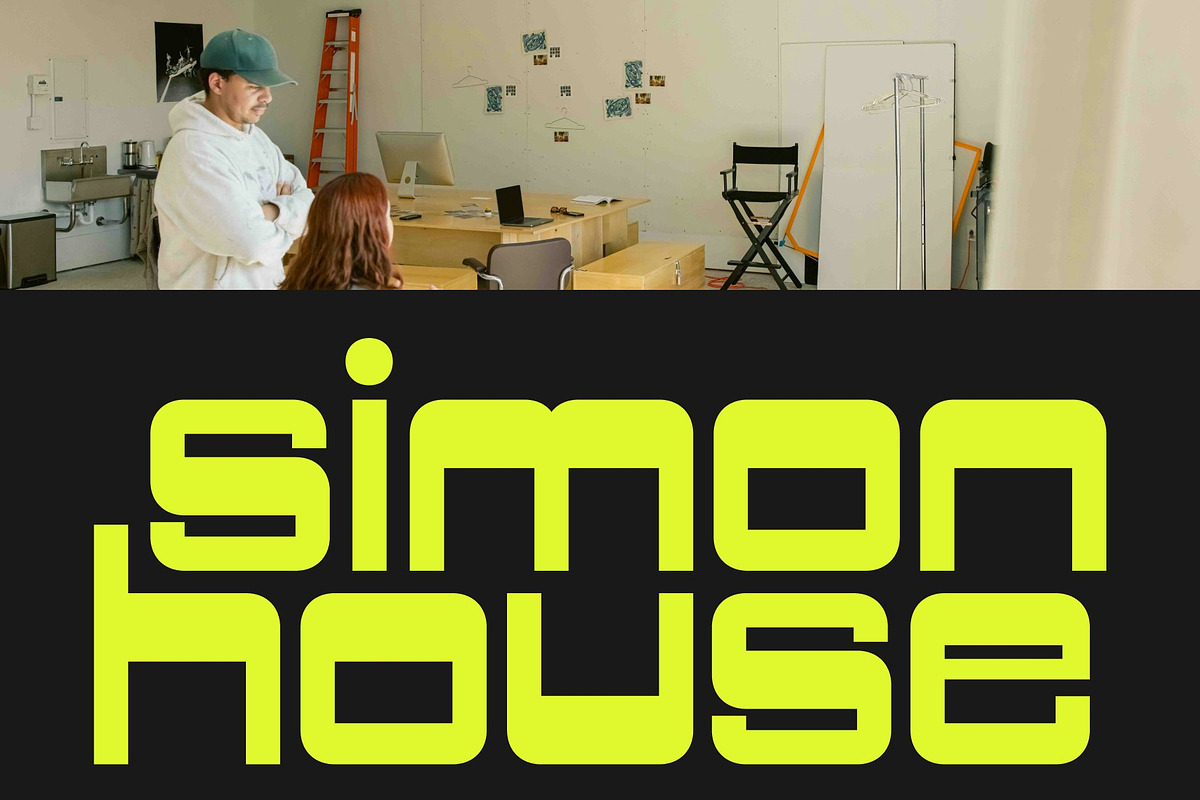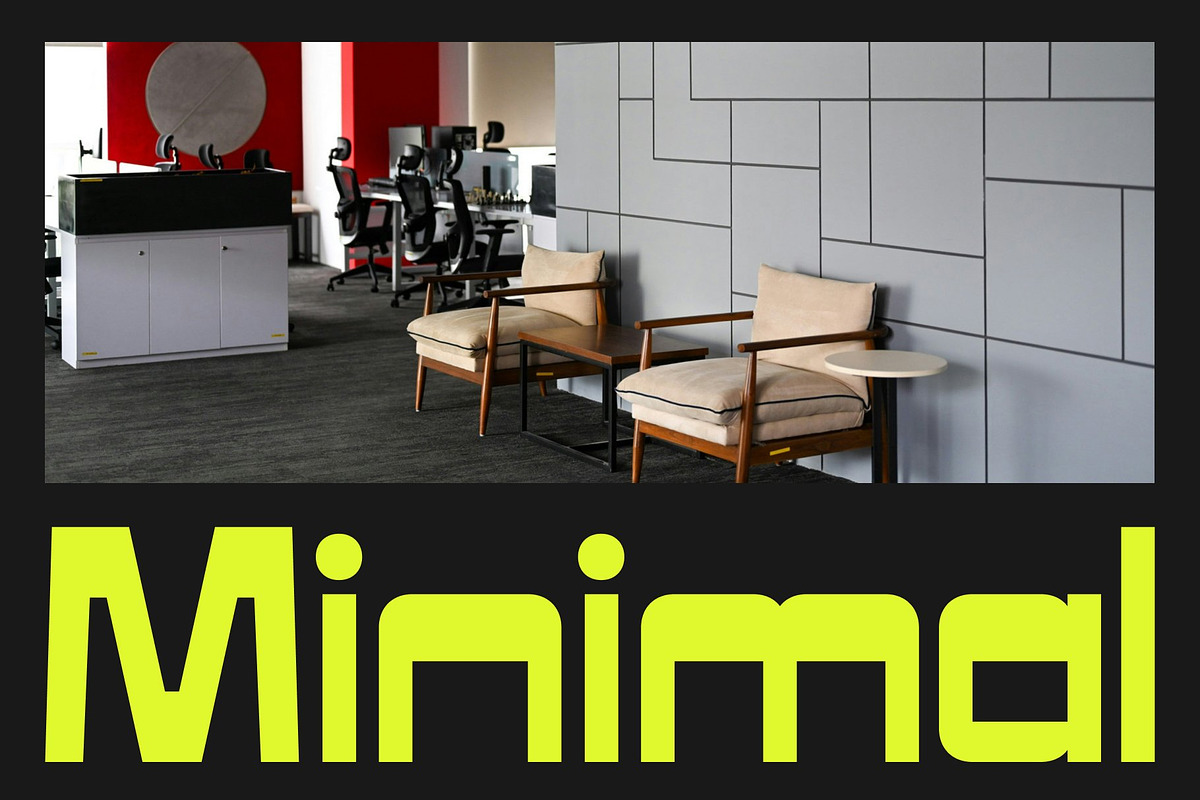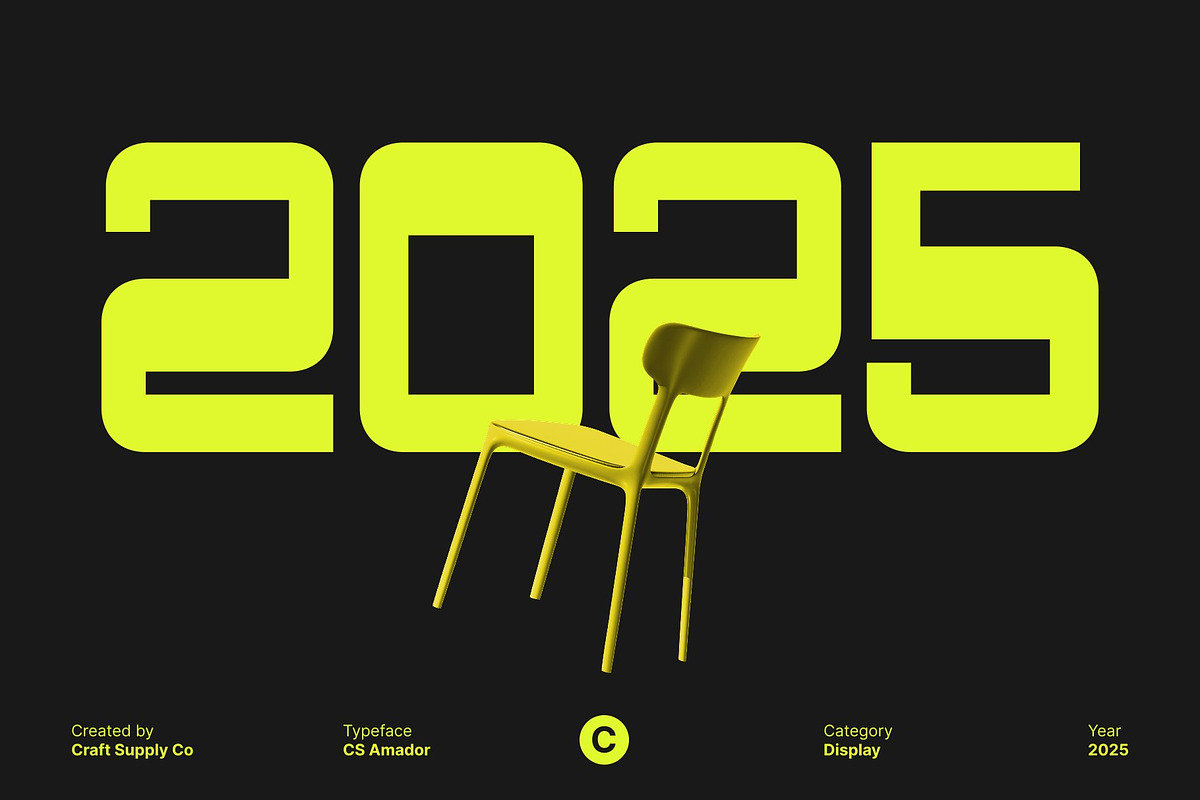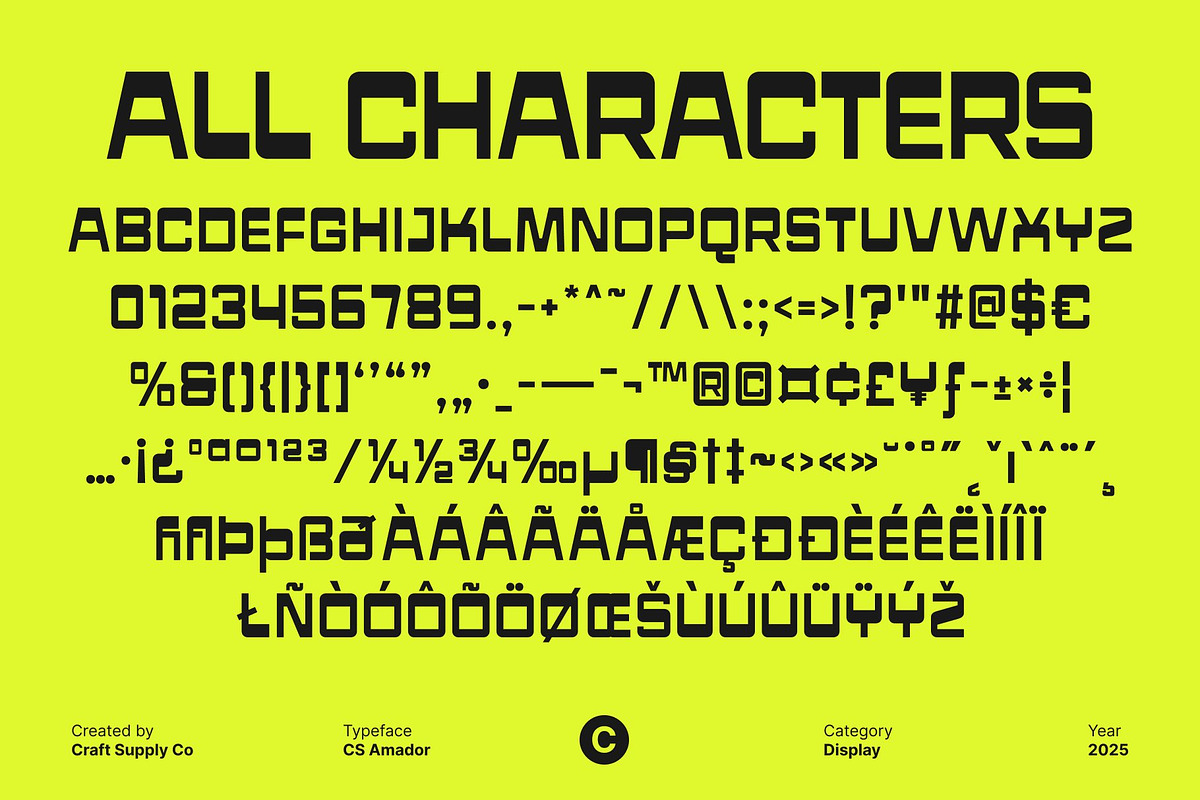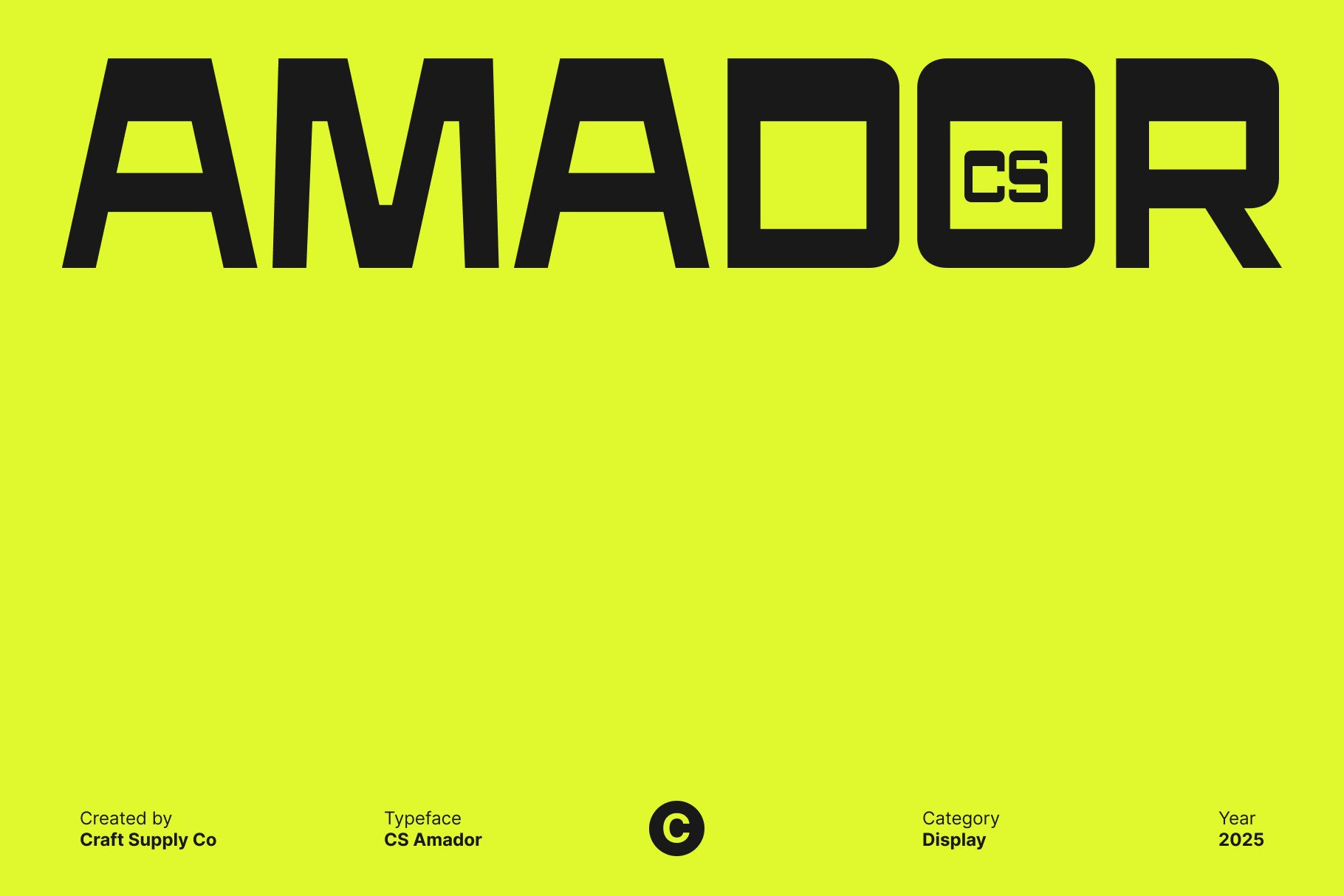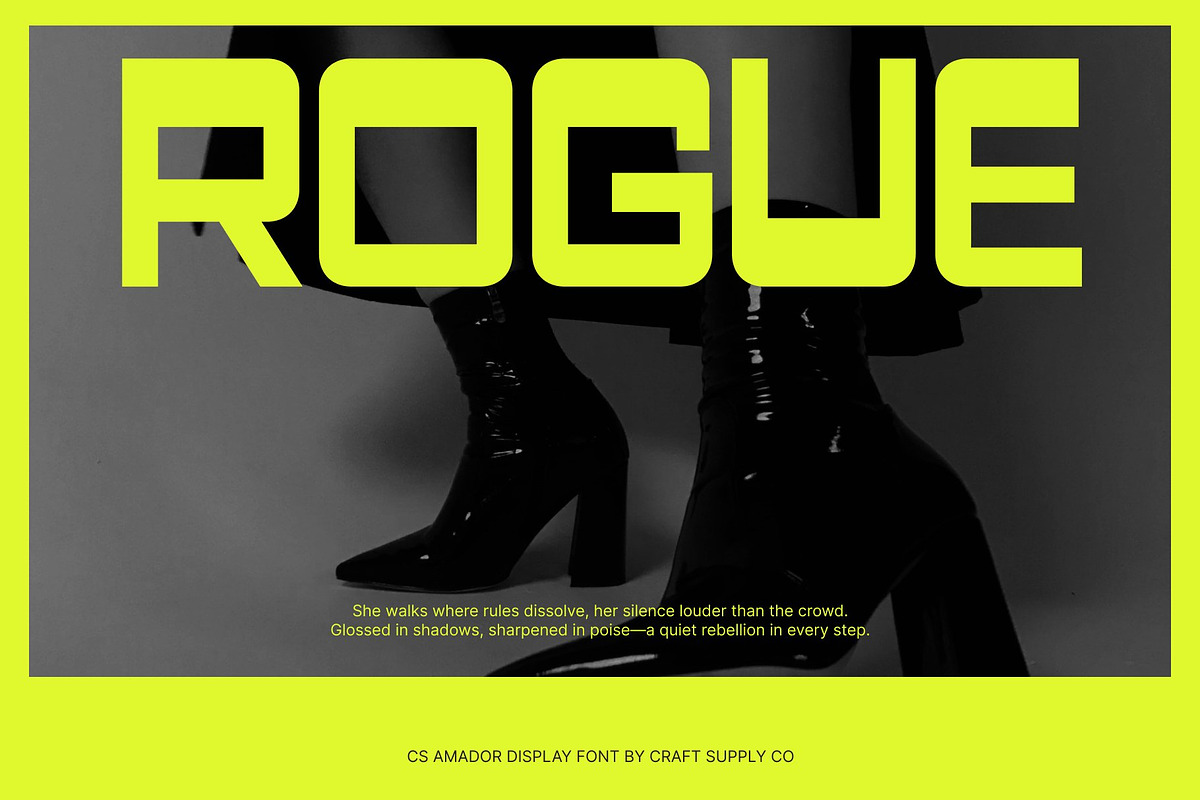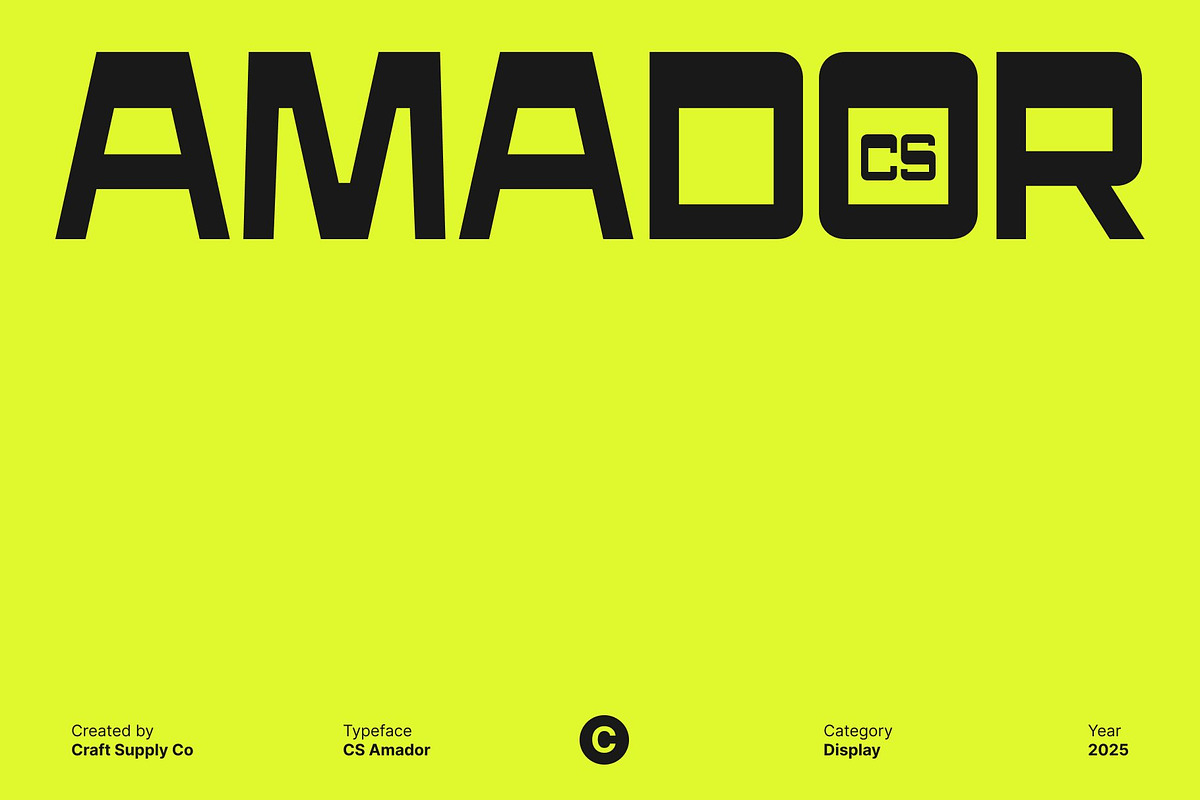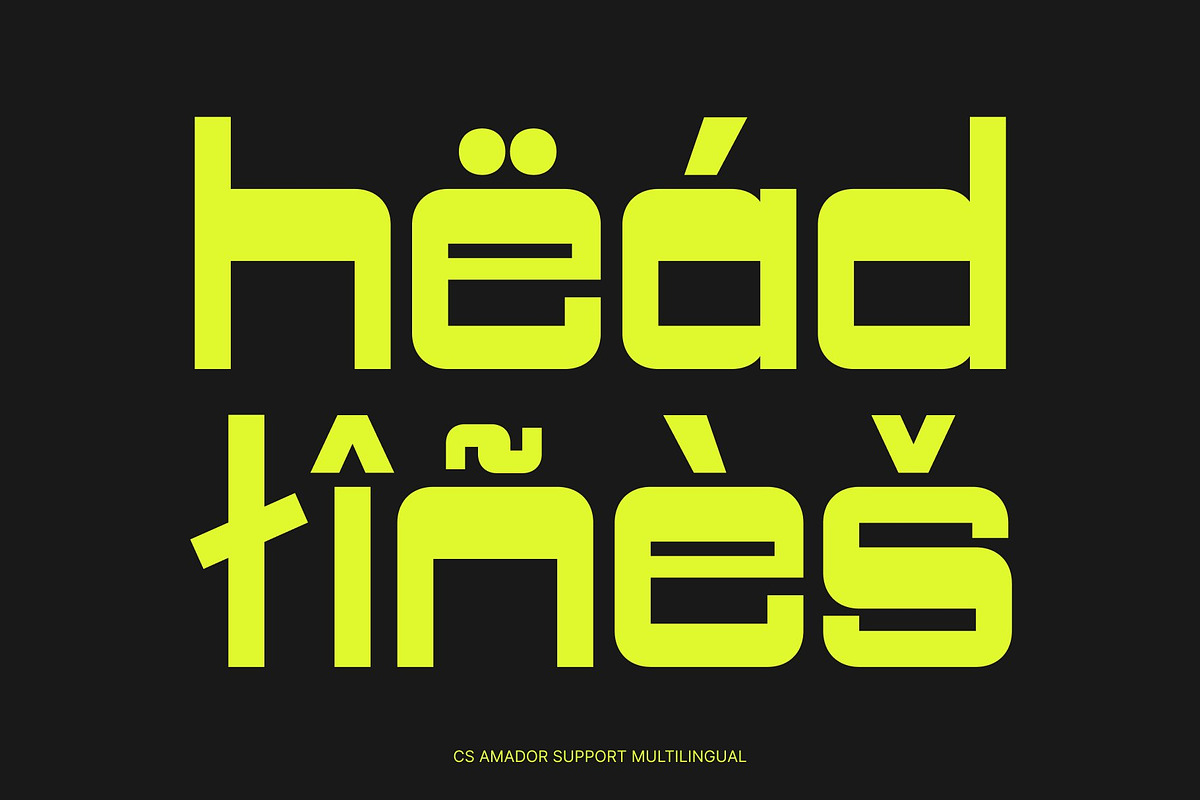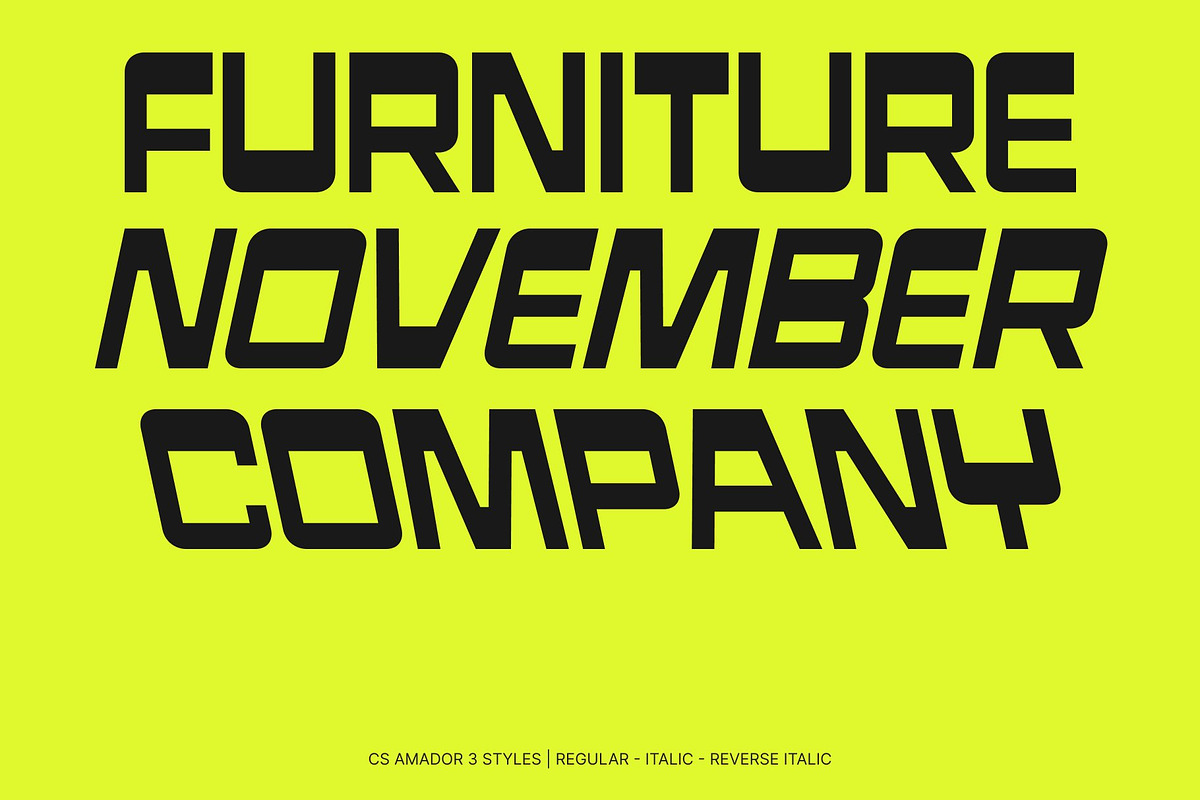
CS Amador – Reverse Contrast Font
CS Amador: Bold Modernity with Masculine Edge
Reverse Contrast Sans Serif with Modern Strength This is a reverse contrast sans serif font that fuses masculine confidence with stylish contemporary design. Defined by its bold shapes and modular geometry, this typeface captures the power of modern aesthetics while offering a unique visual twist through its reverse contrast structure. Every letterform stands firm and assertive, giving your design a strong and unforgettable presence.
Distinctive Character with Modern Expression This font’s reverse contrast detailing creates unexpected rhythm and balance, transforming familiar forms into something daring and fresh. Its strong verticals and distinctive proportions evoke a sense of industrial precision, while subtle stylistic nuances add a refined, modern touch. The result is a typeface that is both bold and beautifully balanced perfect for designers seeking originality.
Perfect for Branding, Posters, and Editorial Design Ideal for branding, editorial layouts, and promotional materials, This font brings visual strength and creative sophistication to any composition. Its commanding presence makes it especially effective for logos, titles, or headlines that aim to convey confidence, energy, and innovation.
Versatile for Modern Creative Projects Whether you’re designing for fashion, technology, or contemporary culture, this font adapts effortlessly. Its fusion of masculine form and modern style delivers the perfect foundation for distinctive branding and bold promotional campaigns, ensuring your message not only stands out but leaves a lasting impression.